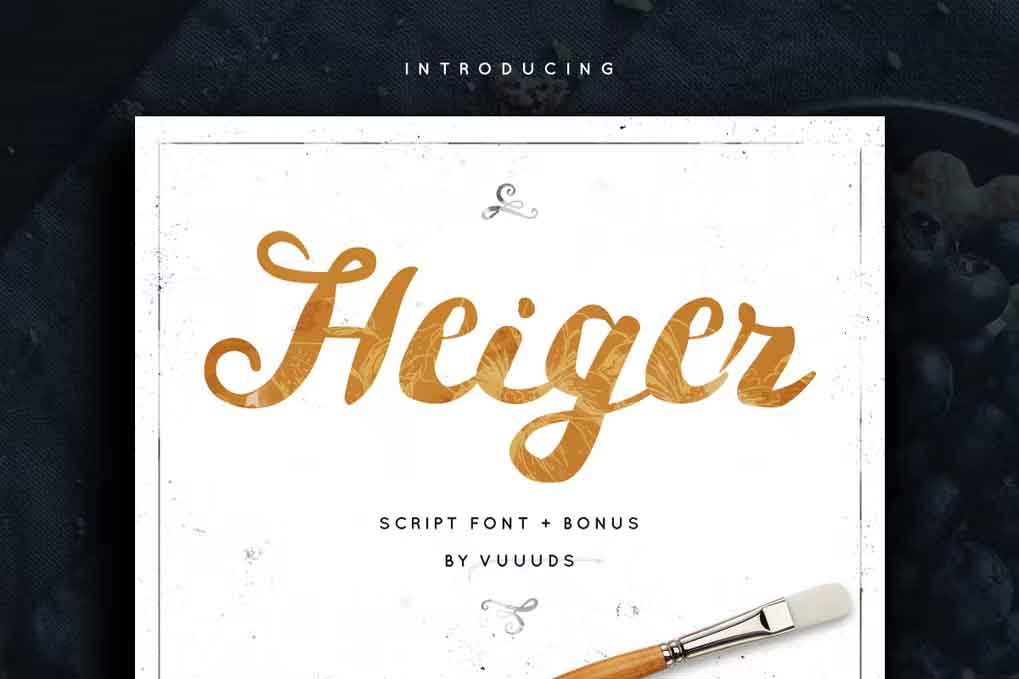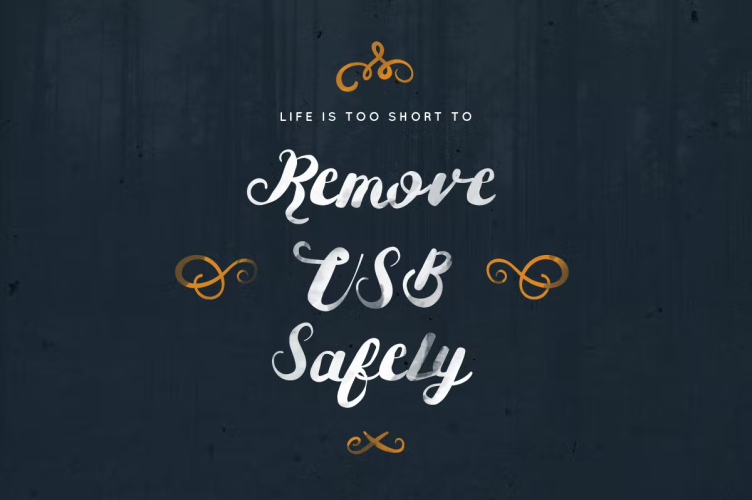
Heiger Font
Heiger font is a carefully crafted font. This item also comes with lot of free vector swirls set. Every single letters have been carefully crafted to make your words loo…
Heiger font is a carefully crafted font. This item also comes with lot of free vector swirls set. Every single letters have been carefully crafted to make your words looks awesome. Heiger font can be used for branding, logo, fashion, apparel, letter, invitation, stationery, etc
Where Heiger Font works best
Heiger Font brings a personal, handwritten warmth to invitations, menus and place cards.
Craft brands — coffee, cosmetics, bakery — use scripts like Heiger Font for signature-style logos and labels.
Pair Heiger Font with a plain sans for quotes, stories and Pinterest pins that feel handmade.
What is Heiger Font good for?
Heiger Font is a Script And Handwritten typeface tagged Branding, Free, Script, Script And Handwritten. It works well for headlines, logos, posters, social media graphics and branding projects that need a distinctive script and handwritten look.